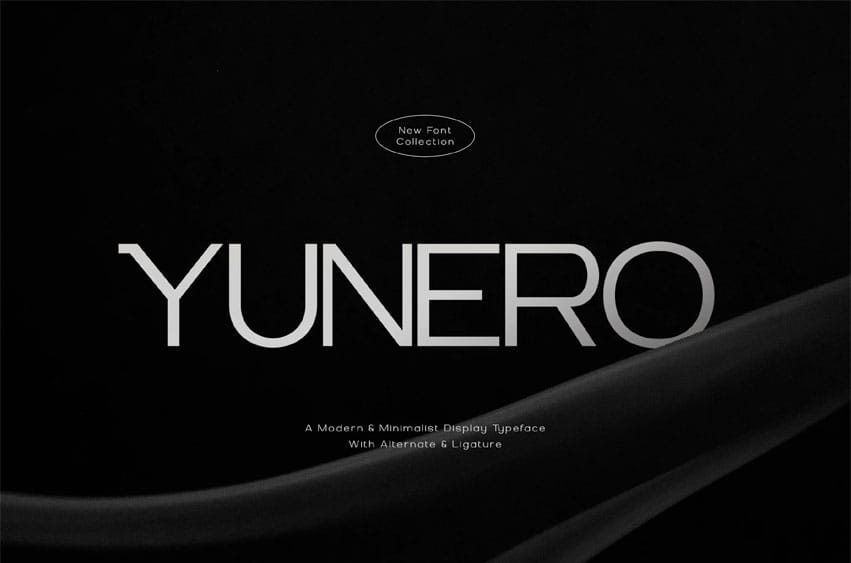
Yunero Font is a sleek, contemporary typeface crafted for elegance, clarity, and standout appeal. Designed with a refined minimalist aesthetic, Yunero embodies modern grace through its clean lines, generous spacing, and balanced proportions. Ideal for branding projects, editorial layouts, packaging, web & UI design, posters, and more — this font strikes the perfect harmony between subtlety and personality.
- Uppercase alphabet A-Z
- Lowercase alphabet a-z
- Numbers 0-9
- Some punctuation
- Some Alternates and Ligatures
Why Choose Yunero?
In a crowded font world, Minimal Modern Yunero stands out by blending understated simplicity with sophisticated design integrity. It’s not just a font — it’s a statement: bold in purpose, quiet in execution. Ideal for creatives and brands who demand clarity, elegance, and distinction in their visual identity.